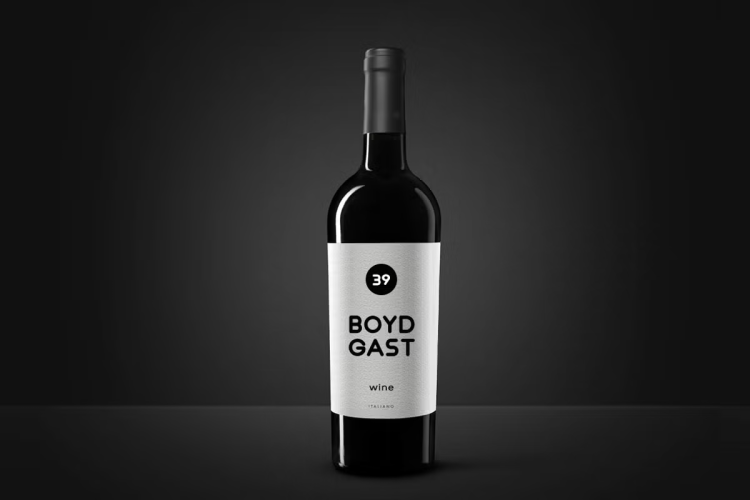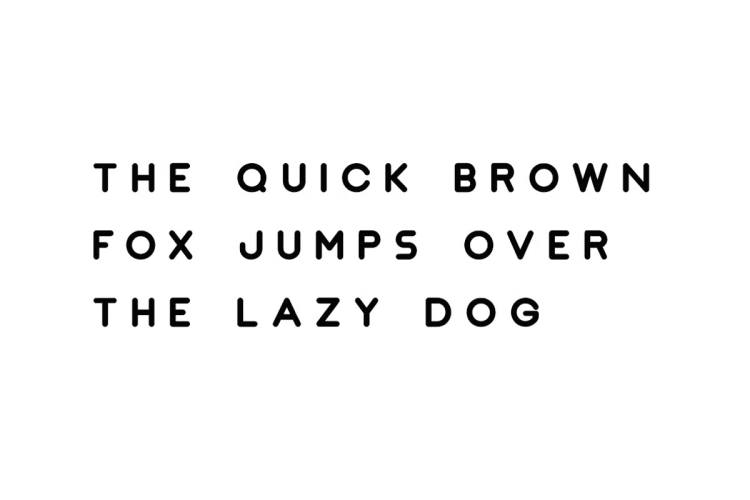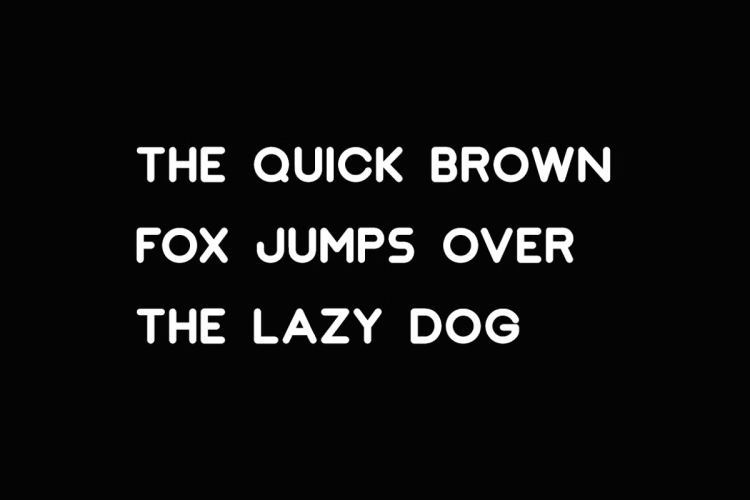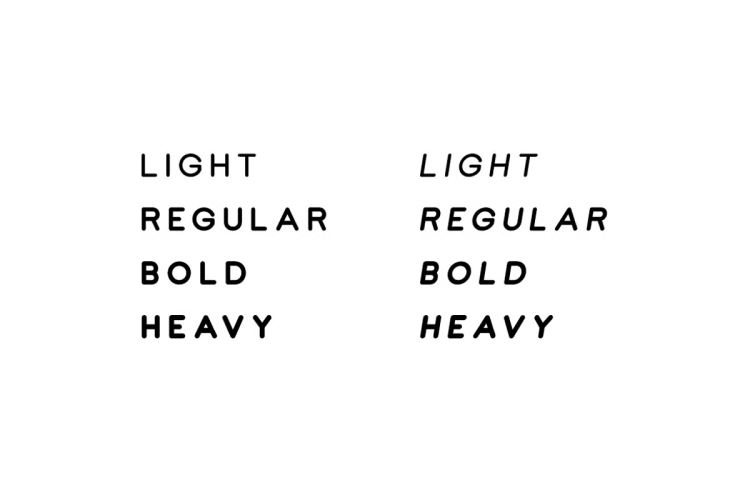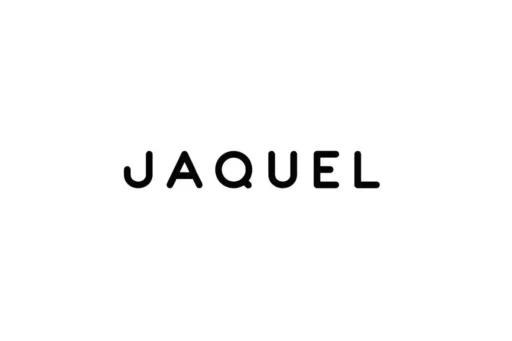
Jaquel Font
Presenting Jaquel – a minimalist sans-serif typeface for today’s modern designs with character and charm. With some influence of the traditional geometric typefaces but with added delicacy on the harmony of the design, this is a sans serif all-caps typeface that comes with the package primarily for display/headline/branding/logotype purposes.
Jaquel will work perfectly for designing beautiful headers (with some letter spacing it will be stunning), that are so common on modern fashion e-stores, high-end branding and logotypes, premium marketing materials, and minimalistic portfolios. It is quite difficult to describe the versatility of this typeface.
Jaquel typeface comes with 8 fonts spanning across 4 weights: Nee- Light, Regular, Bold, Heavy and the Italic versions of each of the above-mentioned styles. The pack consist of Desktop Fonts, which are available in (OTF & TTF) and Web Fonts, which are available in (EOT, SVG, TTF, WOFF, and WOFF2) formats for the licensing.
Jaquel Font is a Sans Serif Fonts font that brings a professional and versatile look to your projects. Presenting Jaquel – a minimalist sans-serif typeface for today’s modern designs with character and charm.